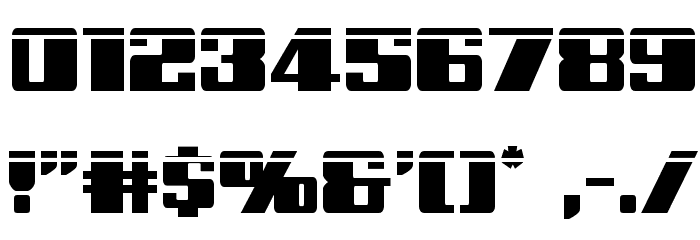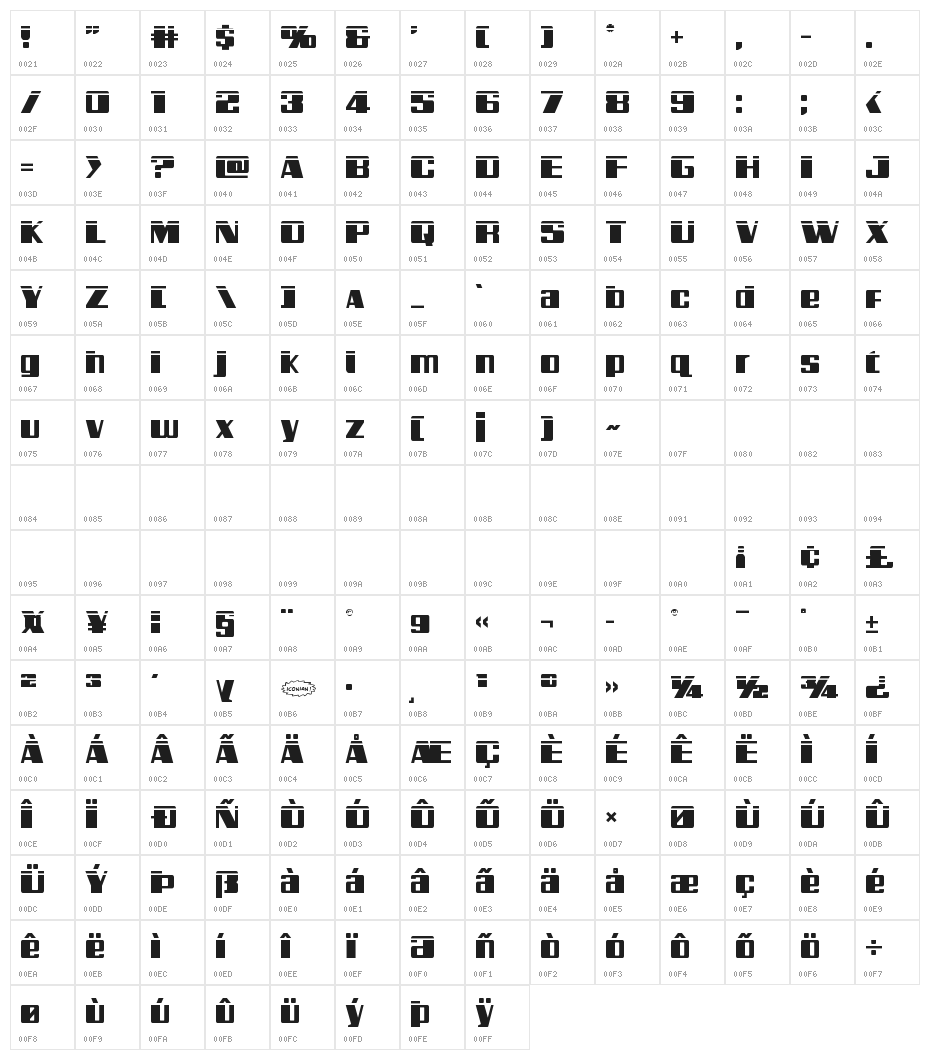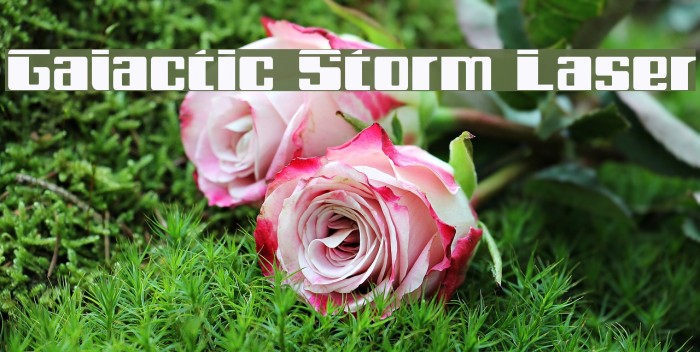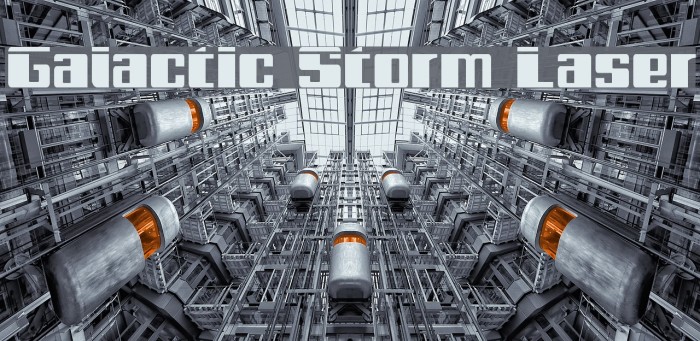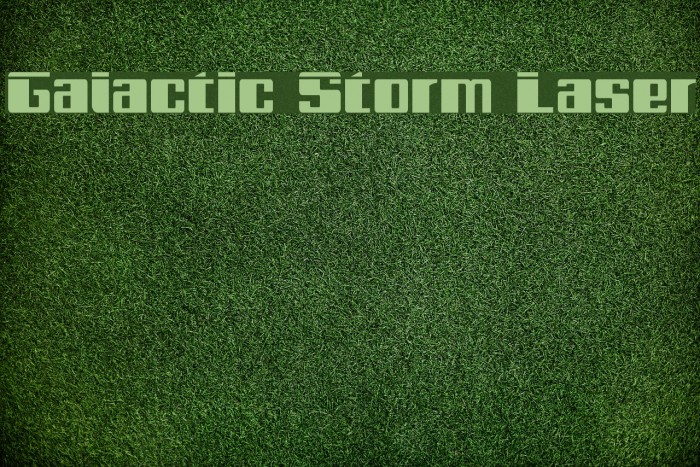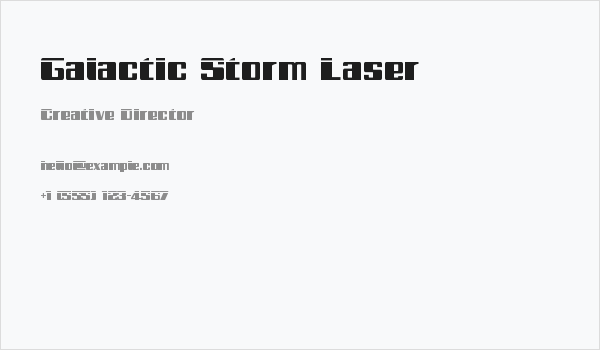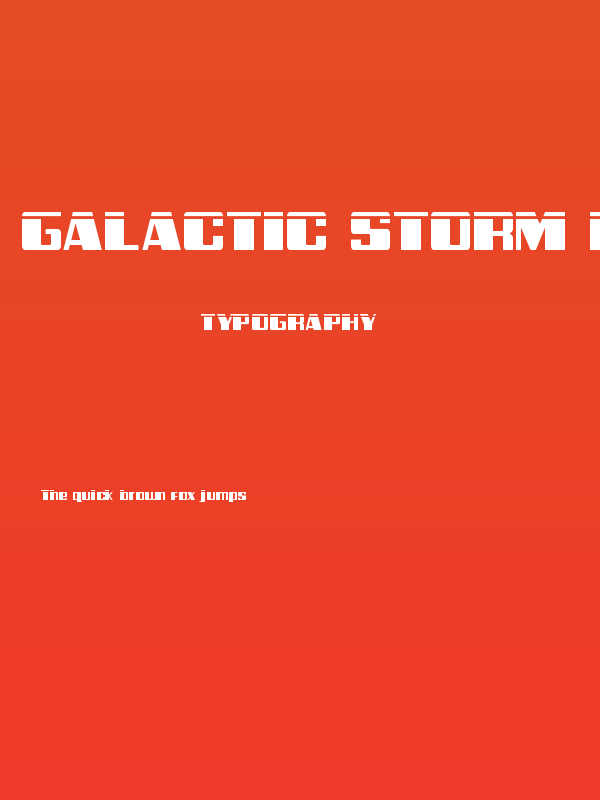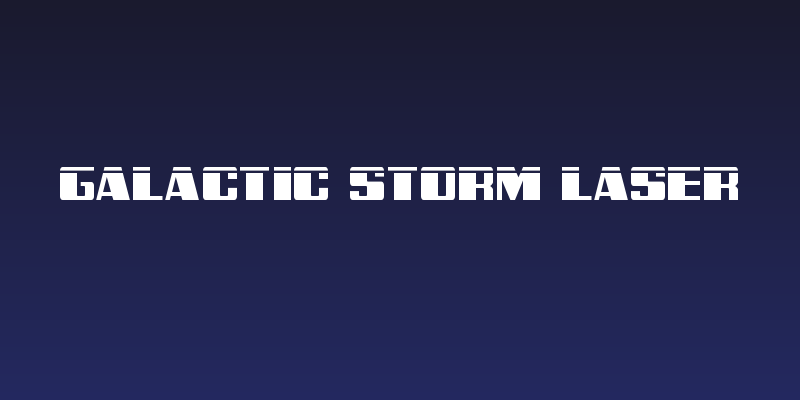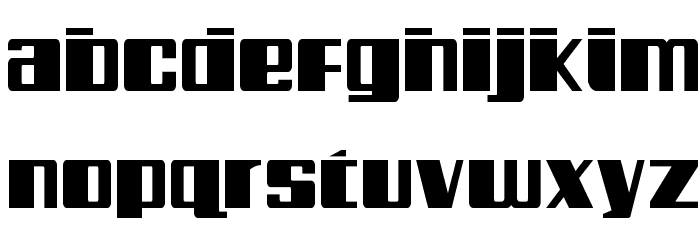
Galactic Storm Laser Font
Galactic Storm Laser Description
This font features a bold and futuristic design, characterized by its sharp angles and geometric shapes. The uppercase letters are particularly striking, with a blocky and robust appearance that suggests strength and modernity. The lowercase letters maintain a similar aesthetic, ensuring consistency across text. Numbers and special characters are designed with the same boldness, making them stand out effectively. The font's style is reminiscent of science fiction themes, making it ideal for projects that require a modern and edgy look.
| Proposed Projects | Ideal for sci-fi themed posters, video game titles, tech branding, and futuristic event flyers. |